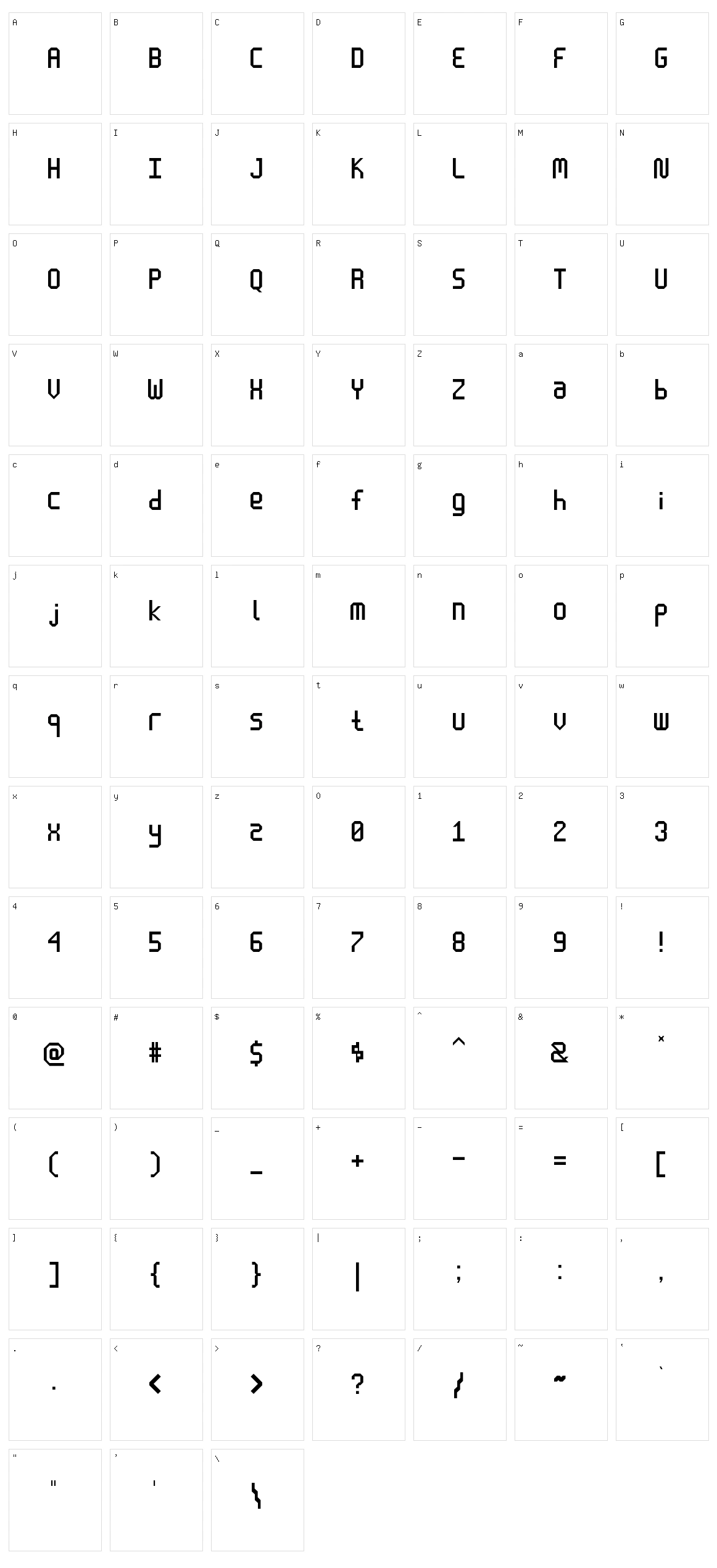
The free font Enlatique is carefully designed by Dichi, showcasing a thoughtful balance of creativity and usability and falls under the Square font style. When you download the ZIP file, it contains only 6.45 KB of font files, making it lightweight and quick to download. Please review the license details below to understand permitted usage and distribution rights. If license information is not available, we recommend using this font for personal projects only or contacting the author directly for commercial usage permissions.